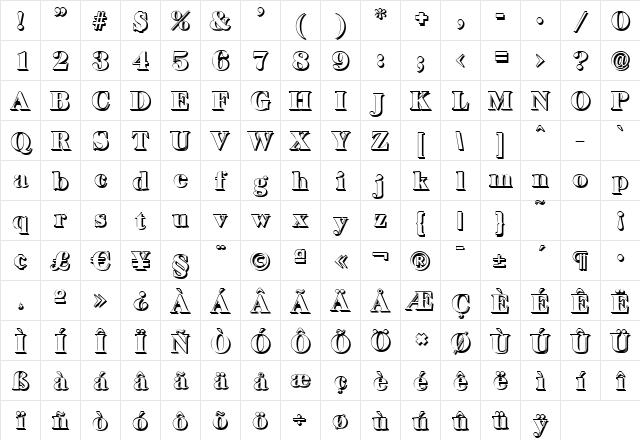
Design Context for ChrisBeckerShadow-Black
ChrisBeckerShadow-Black is built around its visual character rather than neutral utility - its distinctive forms are designed to make an impression at display sizes.
Font Pairing: Pair with a clean neutral sans-serif for body copy to let ChrisBeckerShadow-Black's character lead without overwhelming the composition.
Pro Tip: Use ChrisBeckerShadow-Black exclusively at display sizes - it was designed to be seen, not read at length. Let a neutral companion handle body copy.